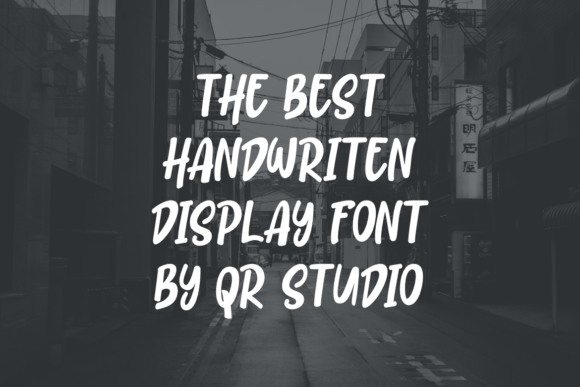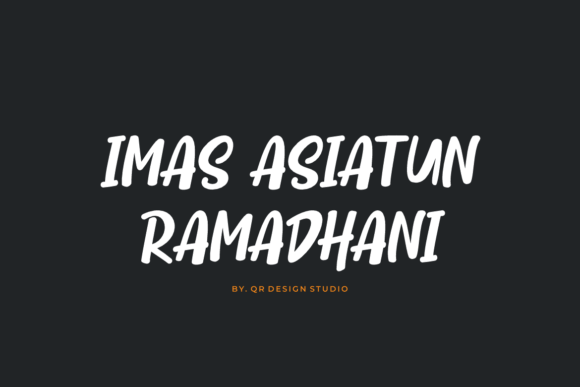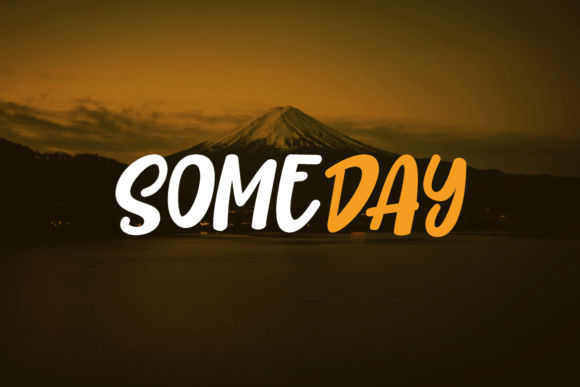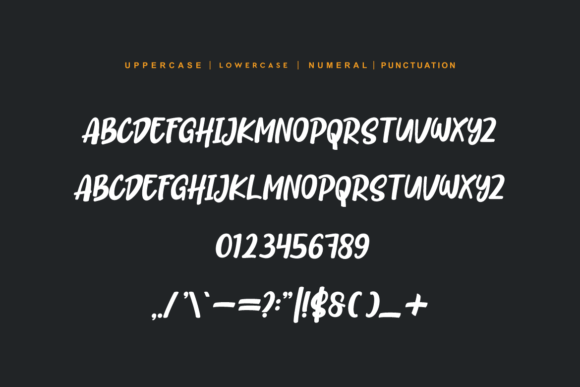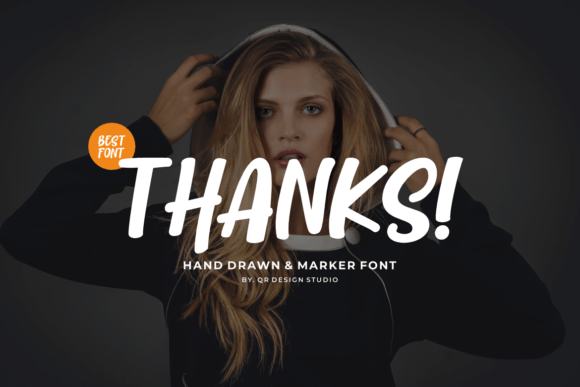
Introduction to Rohisan Font
Rohisan is a cool and assertive handwritten font.
It is suitable for any branding project like logo, sport, social media and many more .
Rohisan Font offers exceptional quality and versatility, making it a valuable addition to your design toolkit. Whether you’re creating for personal projects or commercial use, Rohisan Font delivers professional results.